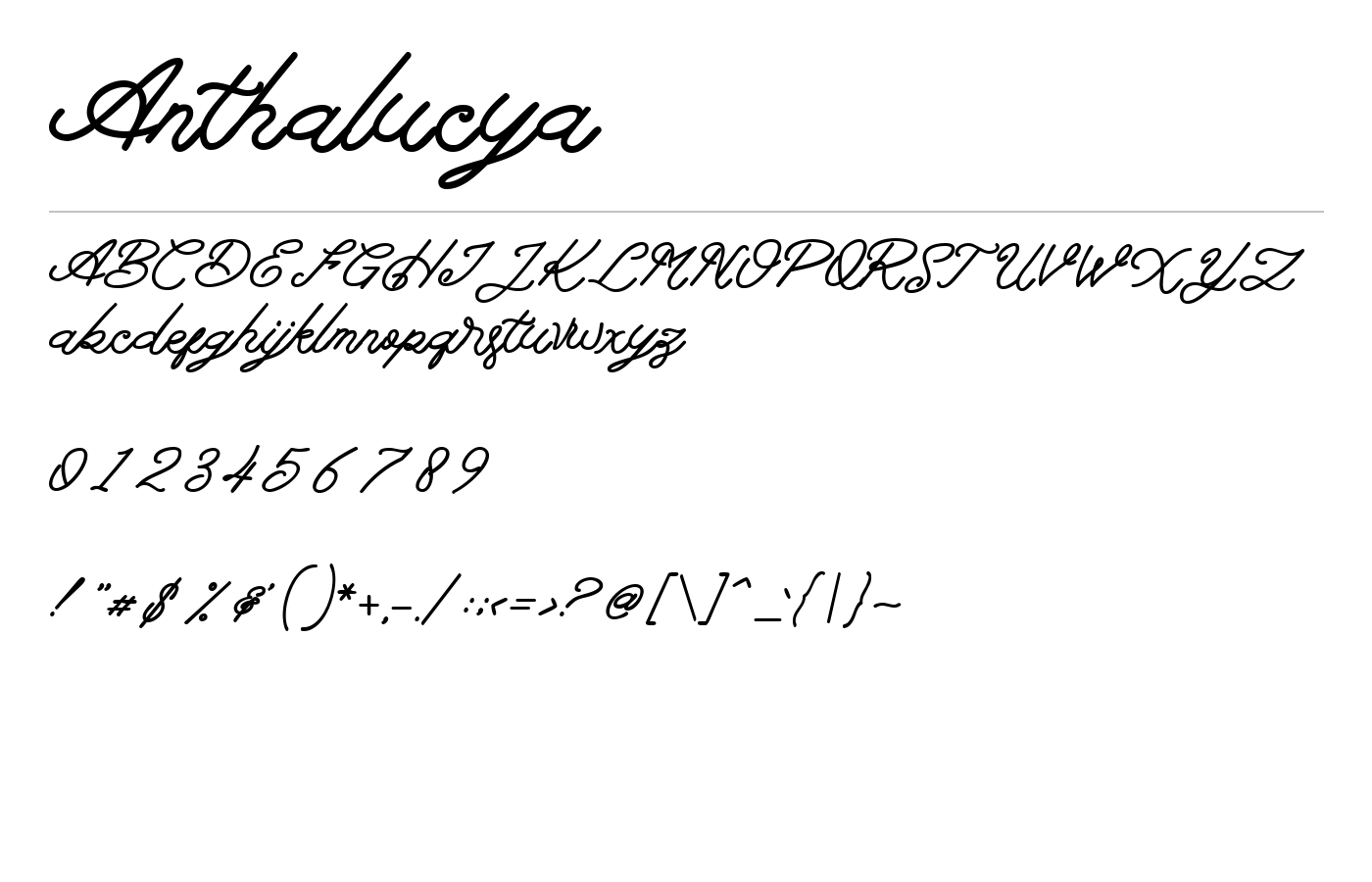
Anthalucya is an elegant, cursive script font featuring smooth, flowing strokes with a handwritten feel. Its light weight and delicate lines give it a refined, graceful appearance, making it perfect for invitations, branding, and editorial designs that seek a touch of sophistication and charm. This font works beautifully in settings where a personal, stylish, and classic look is desired.
Anthalucya Font